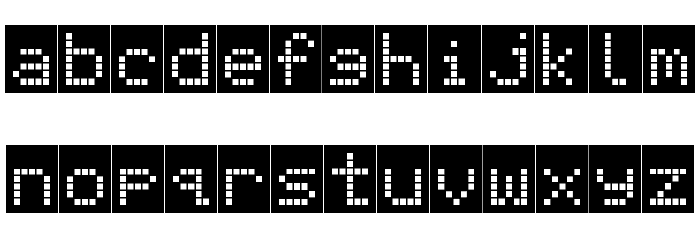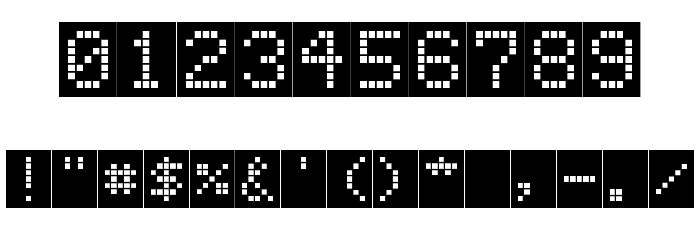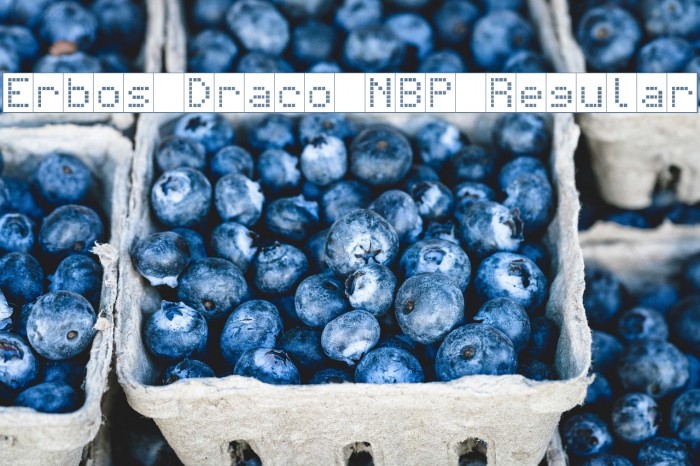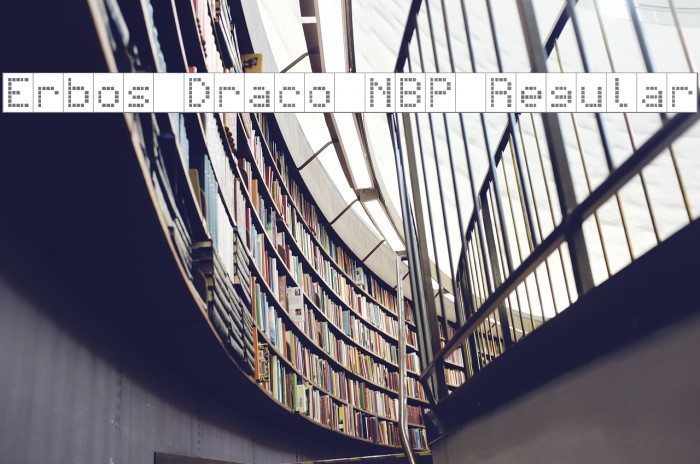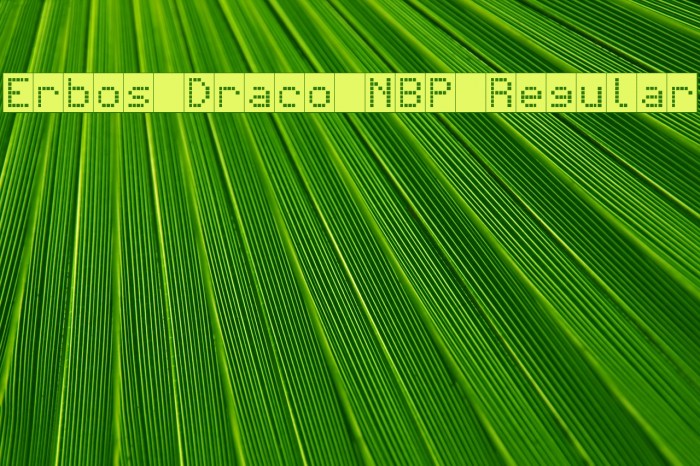
Erbos Draco NBP Regular Font
This font features a unique design composed of small, evenly spaced dots forming each character. The style is reminiscent of digital or LED displays, giving it a modern and technological feel. Each letter and number is constructed with precision, maintaining a consistent grid-like pattern that enhances readability while providing a distinct aesthetic. The uppercase and lowercase letters, as well as numbers and special characters, all share this dot matrix structure, making it ideal for projects that require a futuristic or digital theme. The uniformity in the design ensures that the font remains clear and legible, even at smaller sizes.
A dot matrix style font with a digital, modern aesthetic.
- Proposed Projects: Ideal for digital displays, tech-themed designs, video game interfaces, and futuristic branding.
- Use Case: Headlines, Logos, Digital displays